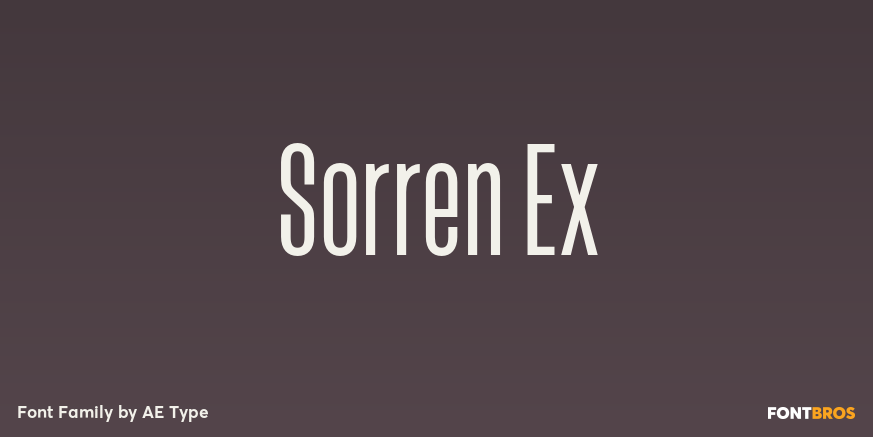
Sorren Ex
About Sorren Ex
Sorren Ex is a slightly less condensed, more robust version of Sorren. Its overall width has been increased to the point just before its rounded forms begin to flatten, retaining the aesthetic essence of the original without compromise.Sorren is a definitive…